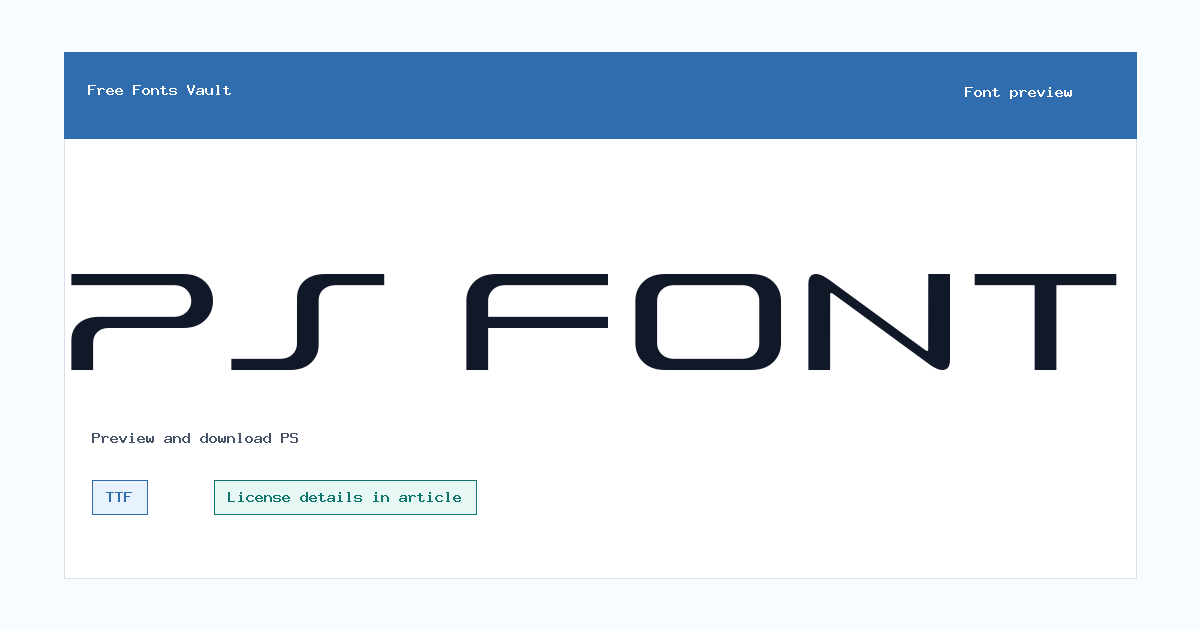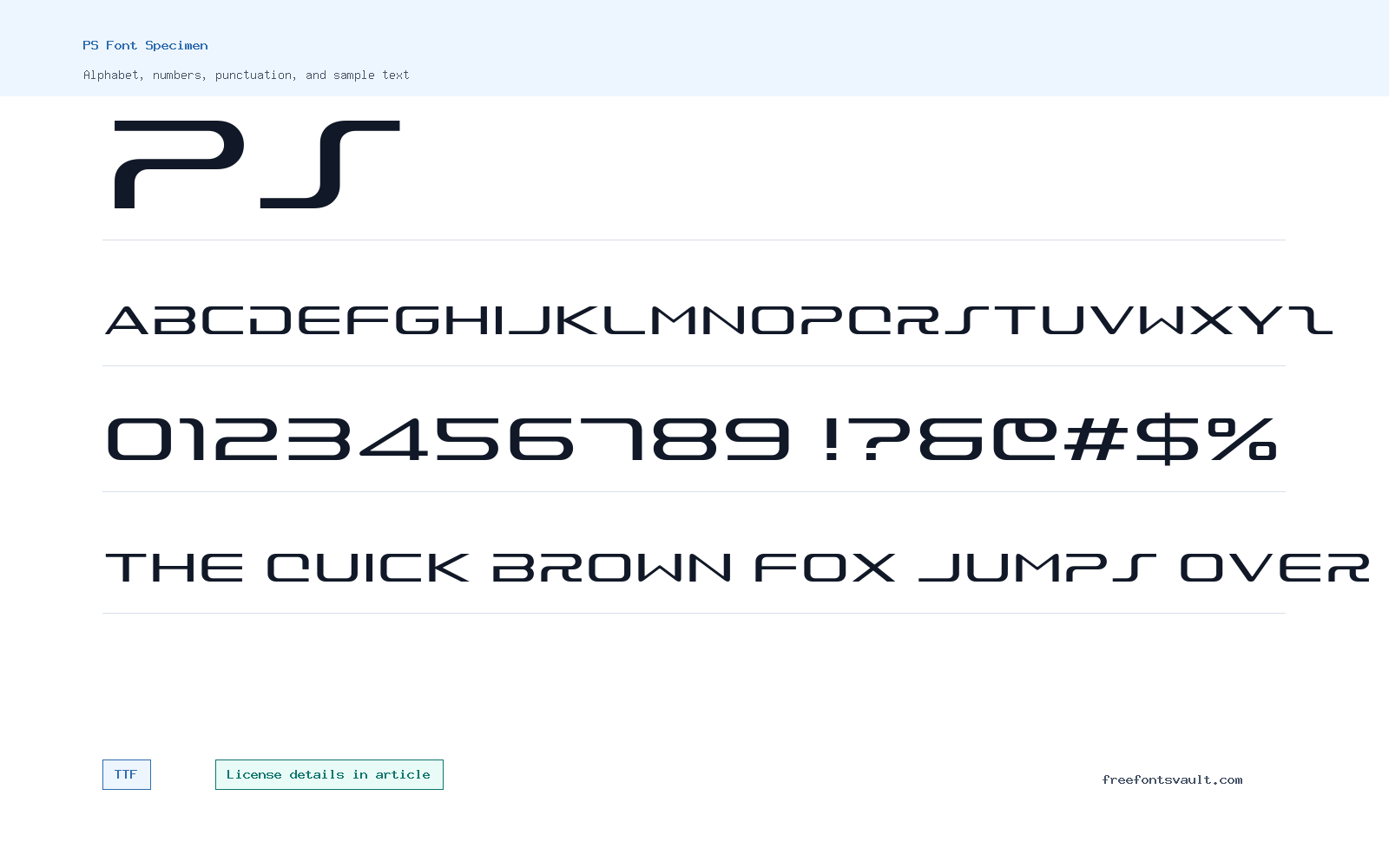
PS
PS is a bold TTF font entry built around one file, PsBold.ttf. Because the saved metadata is minimal, the safest way to judge it is by previewing your own words and treating it as a strong display-weight option.
The file metadata lists PS as a TrueType font with normal style and a 700 weight. That tells us the practical starting point: it is a bold face, better suited to short text than to long reading sections. Use it for headings, labels, thumbnail text, simple posters, and quick graphic tests where a heavier voice is useful.
- Practical for short display text where weight and clarity matter.
- Needs real-word testing because there is limited family information.
- Short headings, title cards, thumbnail text, and simple poster layouts.
- Bold labels, badges, menu words, and compact display graphics.
- Personal mockups where you want to compare a heavier type style quickly.
- Testing numbers, punctuation, and uppercase words before choosing a final font.
- Pairing with a lighter body font for longer descriptions or reading text.
Start with your exact headline or label and compare uppercase, lowercase, numbers, and punctuation. Since only a bold file is listed, avoid using PS for dense paragraphs. If a layout needs a full type system, pair it with a regular-weight companion font or choose a family with more styles.
What is PS best used for?
It is best tested for short bold text such as headings, labels, thumbnails, posters, and display graphics.